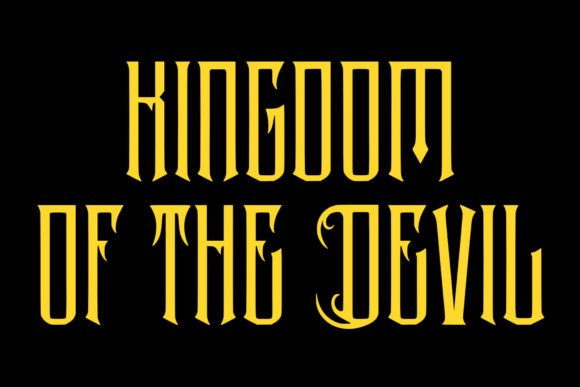
Raddkits Font: A Bold and Stylish Blackletter Display Font
Raddkits font is a stunning blackletter display font that has been making waves in the design world. Its intricate, gothic-inspired letters are perfect for creating eye-catching headlines or unique designs that demand attention. In this article, we’ll take a closer look at Raddkits font, its features, and how you can use it to elevate your designs.
Key Features of Raddkits Font
- Bold and Stylish: Raddkits font is a bold and stylish blackletter display font that makes a strong, dramatic statement.
- Gothic-Inspired Letters: The font features intricate, gothic-inspired letters that add a touch of classic charm to your designs.
- Perfect for Headlines: Raddkits font is perfect for creating eye-catching headlines that grab attention.
- Unique Designs: The font’s unique and dramatic style makes it ideal for creating one-of-a-kind designs.
- Classic Charm with Modern Flair: Raddkits font combines classic charm with modern flair, making it perfect for designers who want to create unique and stylish designs.
Uses of Raddkits Font
Raddkits font is a versatile font that can be used in a variety of design projects. Here are some of the most popular uses of Raddkits font:
- Headlines and Titles: Raddkits font is perfect for creating bold and eye-catching headlines and titles.
- Logos and Branding: The font’s unique and dramatic style makes it ideal for creating logos and branding materials.
- Posters and Flyers: Raddkits font is perfect for creating eye-catching posters and flyers that grab attention.
- Social Media Graphics: The font’s bold and stylish style makes it ideal for creating social media graphics that stand out.
- Packaging Design: Raddkits font can be used to create unique and eye-catching packaging designs.
Benefits of Using Raddkits Font
There are several benefits to using Raddkits font in your designs. Here are some of the most significant advantages:
- Grabs Attention: Raddkits font is designed to grab attention and make a strong statement.
- Unique and Memorable: The font’s unique and dramatic style makes it perfect for creating memorable designs.
- Versatile: Raddkits font can be used in a variety of design projects, from headlines and titles to logos and branding materials.
- Easy to Read: Despite its bold and dramatic style, Raddkits font is easy to read, even at small sizes.
- Customizable: The font can be customized to fit your design needs, making it perfect for designers who want to create unique designs.
Fonts Similar to Raddkits Font
If you like Raddkits font, you may also like the following fonts:
- Blackletter Fonts: Fonts like Fraunces and Libre Baskerville have a similar blackletter style to Raddkits font.
- Gothic Fonts: Fonts like Playfair Display and Great Vibes have a similar gothic-inspired style to Raddkits font.
- Display Fonts: Fonts like Montserrat and Lato have a similar display font style to Raddkits font.
Pairing Raddkits Font with Other Fonts
Raddkits font can be paired with a variety of fonts to create unique and stylish designs. Here are some font pairing suggestions:
- Serif Fonts: Pair Raddkits font with serif fonts like Merriweather or Georgia for a classic and elegant look.
- Sans-Serif Fonts: Pair Raddkits font with sans-serif fonts like Open Sans or Helvetica for a modern and clean look.
- Script Fonts: Pair Raddkits font with script fonts like Pacifico or Brush Script for a creative and artistic look.
Tips for Using Raddkits Font
Here are some tips for using Raddkits font in your designs:
- Use it Sparingly: Raddkits font is a bold and dramatic font, so use it sparingly to avoid overwhelming your designs.
- Experiment with Colors: Experiment with different colors to find the perfect combination that works with your design.
- Pay Attention to Size: Pay attention to the size of the font, as it can affect the overall look and feel of your design.
Raddkits font is a bold and stylish blackletter display font that is perfect for creating eye-catching headlines or unique designs. Its intricate, gothic-inspired letters make a strong, dramatic statement that demands attention. With its versatility, readability, and customizability, Raddkits font is a great addition to any design project.